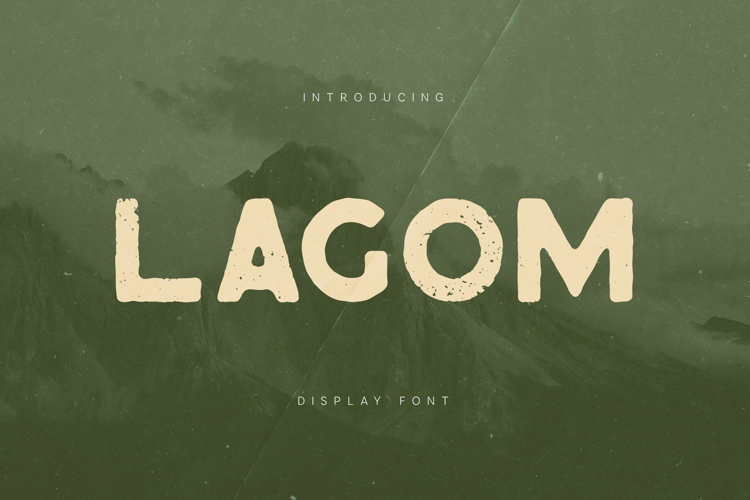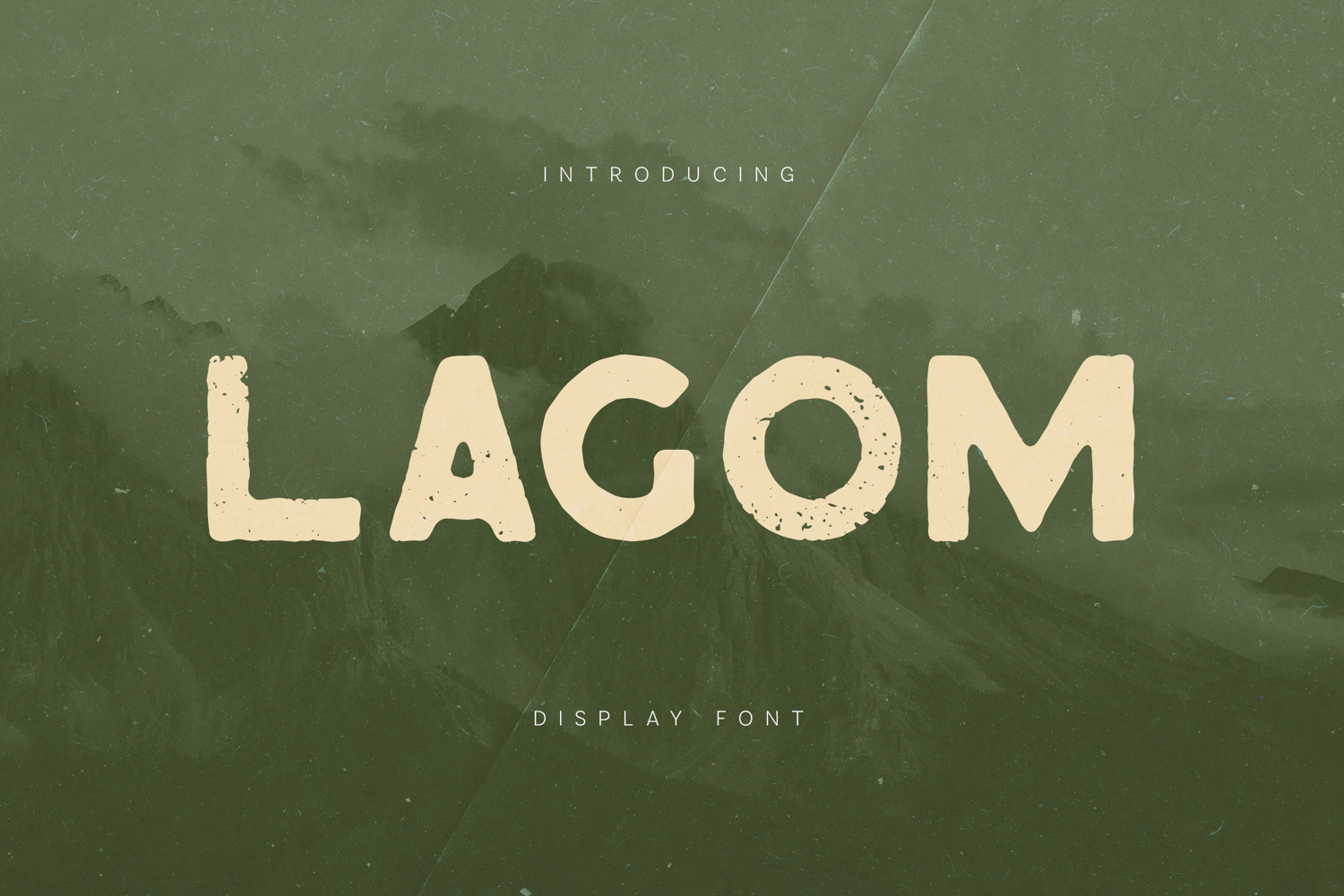
Lagom Vintage Distressed Display Font
Lagom is a bold vintage display typeface designed with a rugged distressed texture that gives every letter a raw, authentic character. Inspired by classic printed typography, worn posters, and retro signage, the font combines strong geometric letterforms with organic imperfections that create a natural, handcrafted appearance.
The design focuses on bold shapes and textured surfaces. Each character features subtle irregularities and rough edges that simulate the look of aged ink and distressed printing techniques. This gives Lagom a strong visual presence while maintaining excellent readability and typographic balance.
Lagom’s bold structure makes it ideal for impactful typography where character and personality are important. The textured details add depth and authenticity to headlines and titles, allowing designers to create compositions that feel vintage, tactile, and expressive.
The font works particularly well in posters, branding, packaging design, labels, editorial layouts, retro compositions, outdoor-themed graphics, and bold typographic headlines. Its strong letterforms and distressed texture help typography stand out while giving designs a timeless vintage aesthetic.
Lagom includes uppercase letters, lowercase letters, numbers, punctuation, symbols, and extended multilingual characters, allowing designers to create consistent typography across a wide range of languages and design projects.
With its bold distressed style and vintage-inspired character, Lagom is a versatile display font that brings strong personality and authentic texture to modern typography projects.